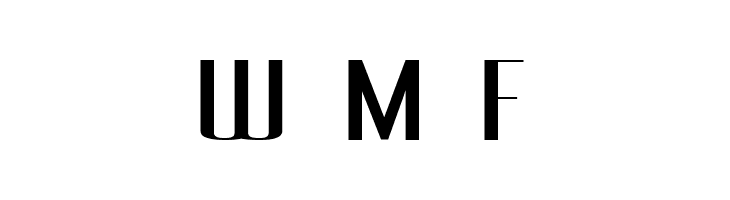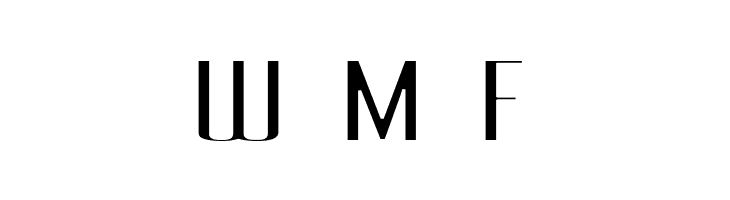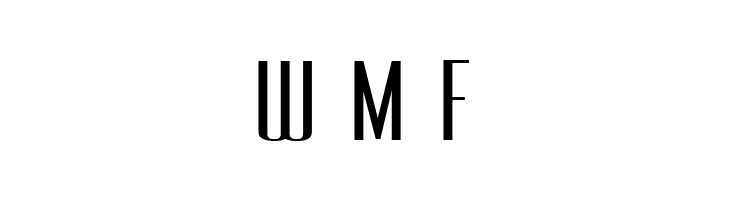
( Introduction of Seaport Font here is another gorgeous and artistical typeface that is known as Seaport font, designed and shared by a great type designer Fontforestry, who is a dominant name in the designing field. It is the first but extremely Wonderful. )